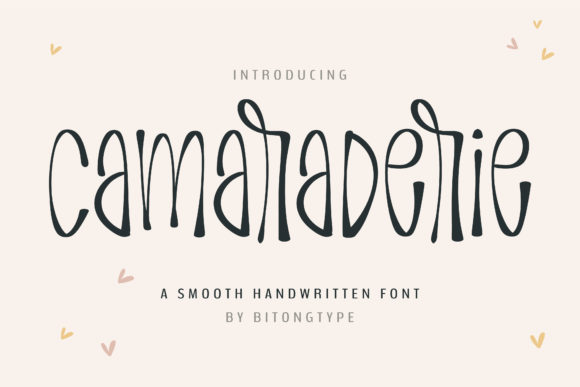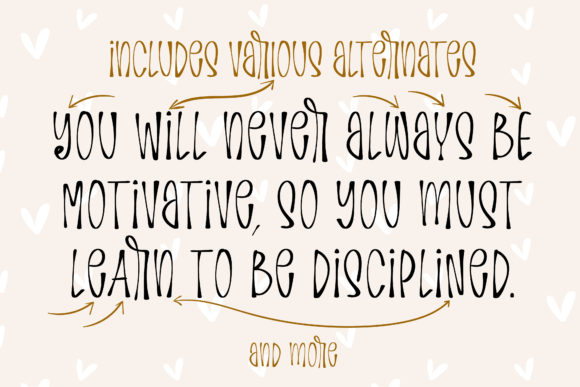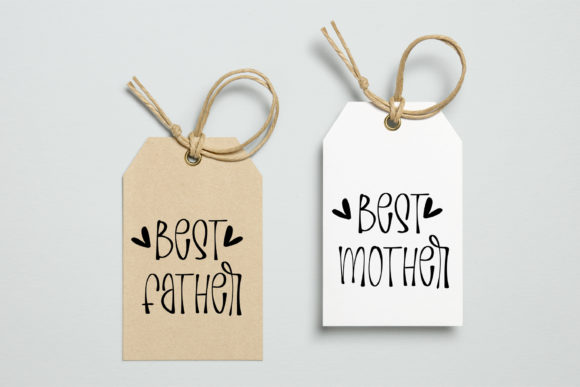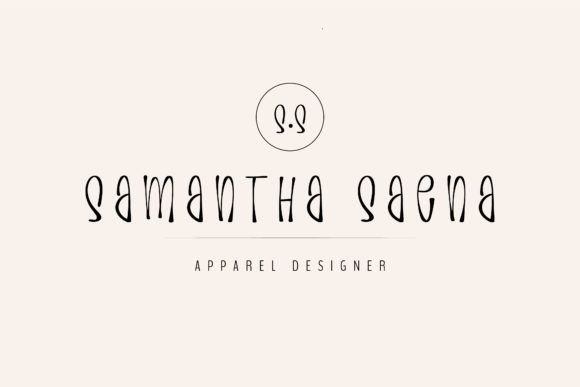
Camaraderie Font: A Quirky Handwritten Font for Cute DIY & Cricut Projects
About the Camaraderie Font
Add a touch of class to your work with the Camaraderie Font, a truly exceptional typeface. Camaraderie is a sweet and a bit quirky handwritten font. Its natural and unique style makes it incredibly fitting to a large pool of designs. The only limit is your imagination!
Camaraderie excels in projects requiring a friendly, approachable feel. It’s ideal for branding materials like logos for cafes, boutiques, or children’s products, as well as short headlines, invitations, and social media graphics. However, its handwritten nature makes it less suitable for body text or UI elements where legibility over long stretches is crucial.
Pair Camaraderie with a clean sans-serif like Lato for a balanced contrast, or a playful script font like Great Vibes for a more whimsical effect. A geometric sans-serif could also work well, offering a modern counterpoint to Camaraderie’s organic forms. Avoid pairing it with overly ornate or highly decorative fonts; this would create visual clutter.
The font’s core personality is undeniably cheerful and slightly quirky, conveying a sense of warmth and approachability. Its informal style makes it perfect for projects aiming for a friendly, handmade aesthetic.
Camaraderie Font Usage Examples
Camaraderie Font Example